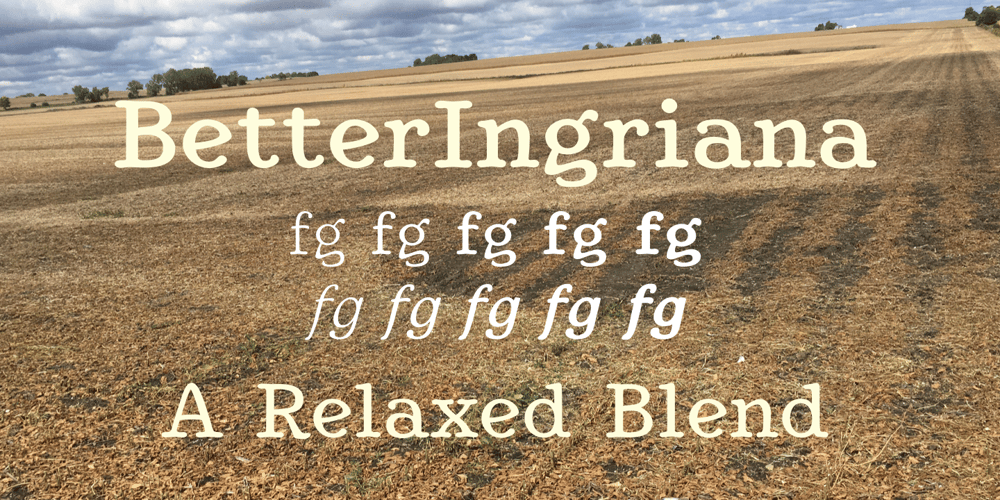
BetterIngriana Font Family was designed by Robert Schenk and published by Ingrimayne Type. BetterIngriana contains 10 styles and family package options. In the 1990s Adobe’s MultipleMaster technology introduced interpolation into font editing programs. Though the obvious use of interpolation was to create an unlimited number of weights for a font, interpolation could also be used to crossbreed two completely different typefaces. BetterIngriana is the result of such crossbreeding, the offspring of two very different parents. BetterTypeRight has little contrast and large, round serifs while Ingriana is a relaxed, informal typeface. BetterIngriana was constructed in 1995-6; updates in 2012 and 2020 cleaned up many of the remaining oddities that resulted when parts of the parent fonts clashed. The family retains some peculiarities from the method of its construction but is highly readable as text.The BetterIngriana family has six styles: regular, semibold, bold, italic, and semibold italic and bold italic.